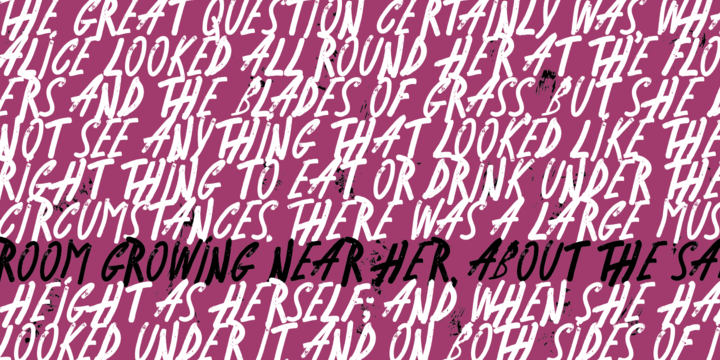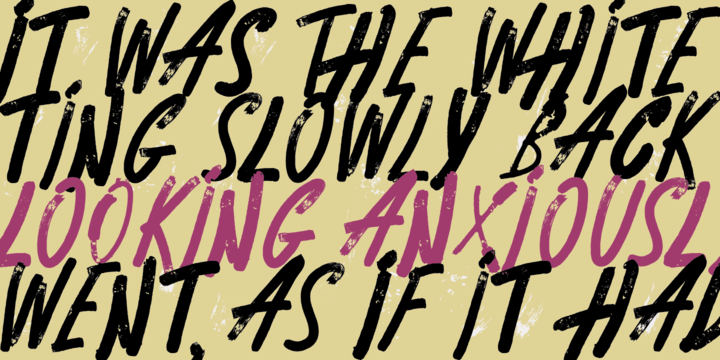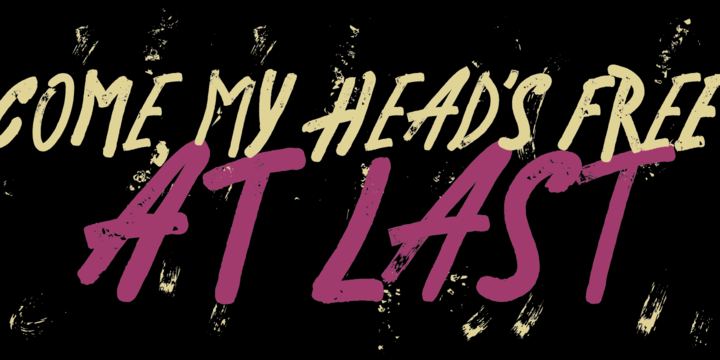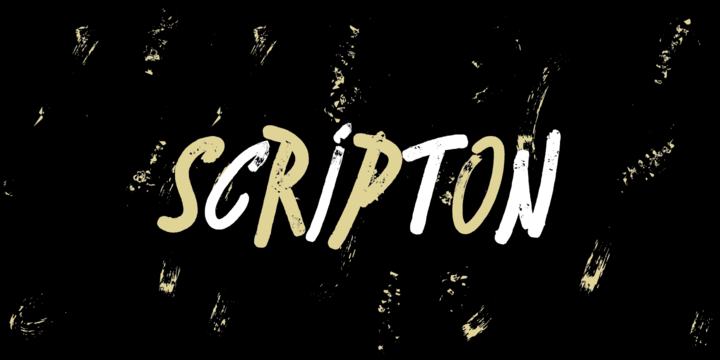
Introduction to Scripton Font
Bouncy, slanted and urban brush typeface Scripton combines 2 different glyph weights within single font file which gives an specific rhytm and contrast to titles and paragraphs.
Scripton Font offers exceptional quality and versatility, making it a valuable addition to your design toolkit. Whether you’re creating for personal projects or commercial use, Scripton Font delivers professional results.